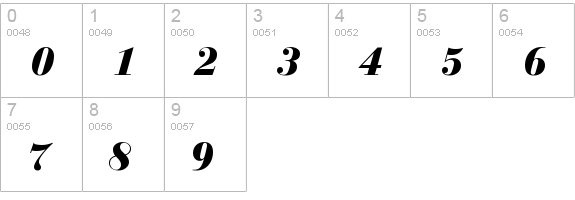
Bodoni Recut Black SSi Black Italic is a maximum-weight, dramatic, italic variant in the Bodoni typeface family \xE2\x80\x94 well suited to maximum-impact headlines, posters, and packaging.
Bodoni Recut Black SSi Black Italic font exudes elegance and sophistication with its bold and slanted design. The sharp, clean lines and distinct serifs of this typeface make it perfect for creating eye-catching designs that demand attention. The italicized version adds a touch of flair and modernity to any project, making it a versatile choice for both print and digital applications. Best of all, Bodoni Recut Black SSi Black Italic font is available for free download at FontsMarket.com. Whether you're designing a logo, poster, website, or any other creative project, this font will elevate your work to the next level. Don't miss out on the opportunity to add this stunning typeface to your font collection today!